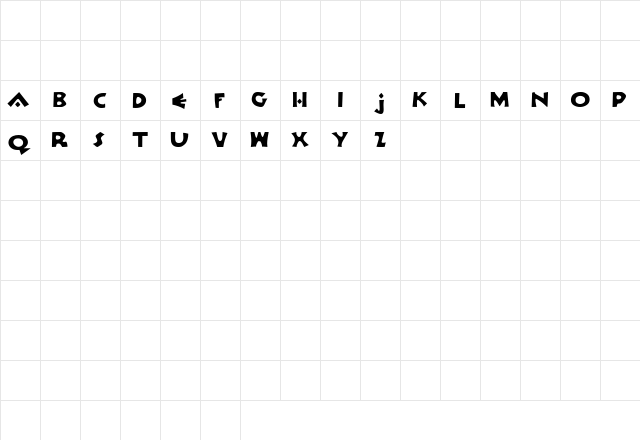
Orlock Demo Regular
Design Context for Orlock Demo Typeface
Orlock Demo is a composed and adaptable typeface that performs quietly and consistently across a wide range of design contexts.